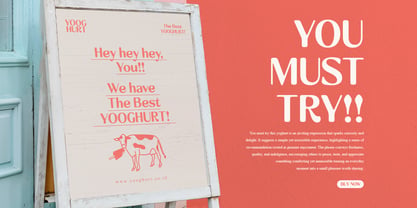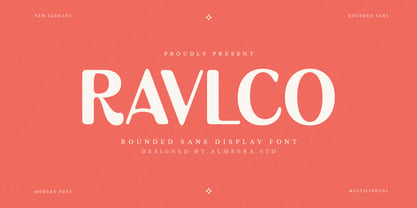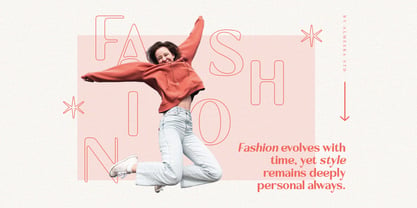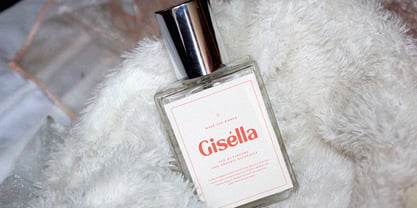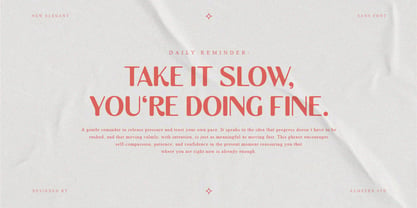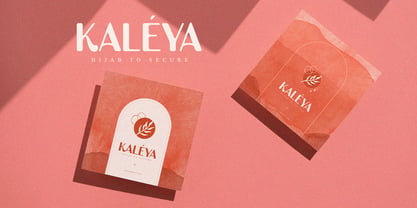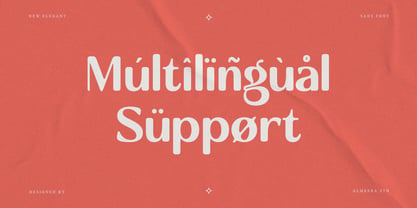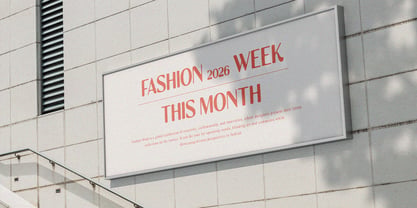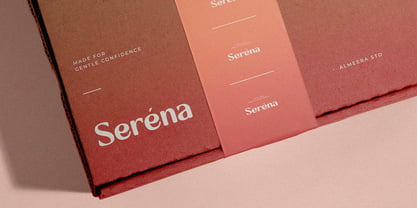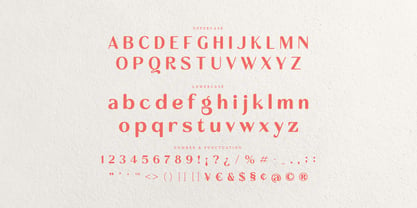
Ravlco
by Almeera Studio
The Ravlco Font Family was designed by Rinto Dwi Nugroho and published by Almeera Studio. Ravlco contains 1 styles.
Ravlco is a modern rounded sans display font designed to deliver a friendly, soft, and contemporary typographic expression. Its rounded terminals and smooth curves create a welcoming visual tone while preserving clarity and structure.
Built for impactful display use, Ravlco is ideal for creative branding, bold headlines, modern layouts, and expressive visual systems. The font balances playful character with professional execution, supported by multilingual coverage and consistent proportions.